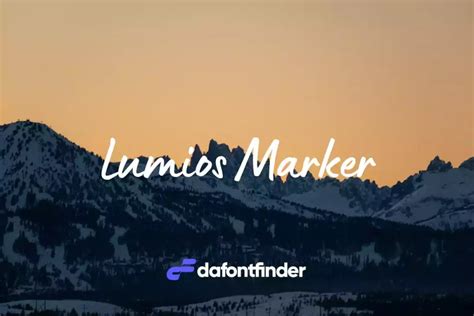
Lumios Marker Font. Web lumios is a freehand casual marker script that was created using pilot sign pen. Web explore lumios marker designed by elena genova at adobe fonts.
It has both extended latin and basic cyrillic. A script typeface with 1 style, available from adobe fonts. Web lumios is a freehand casual marker script that was created using pilot sign pen. Web explore lumios marker designed by elena genova at adobe fonts.
A script typeface with 1 style, available from adobe fonts. It has both extended latin and basic cyrillic. A script typeface with 1 style, available from adobe fonts. Web lumios is a freehand casual marker script that was created using pilot sign pen. Web explore lumios marker designed by elena genova at adobe fonts.